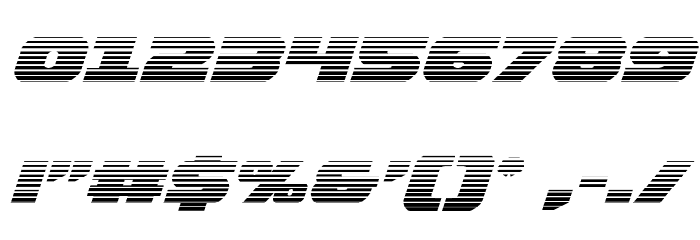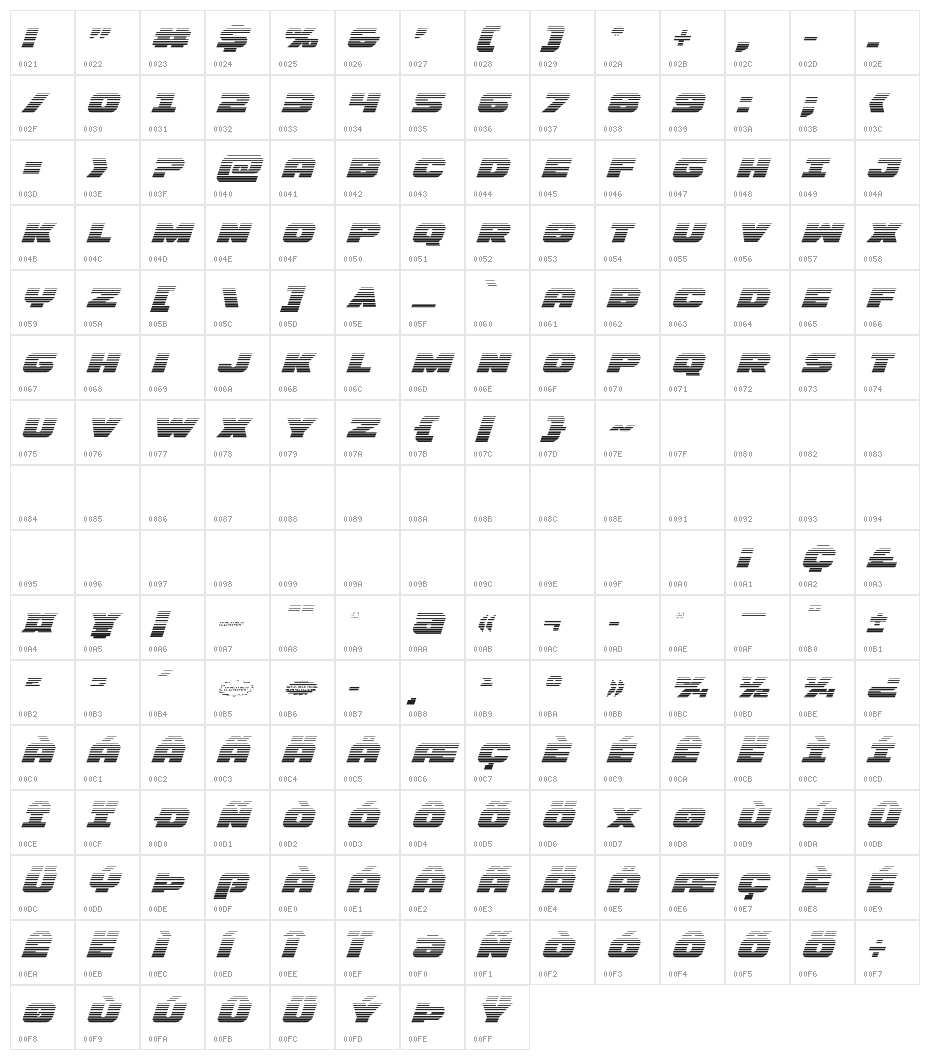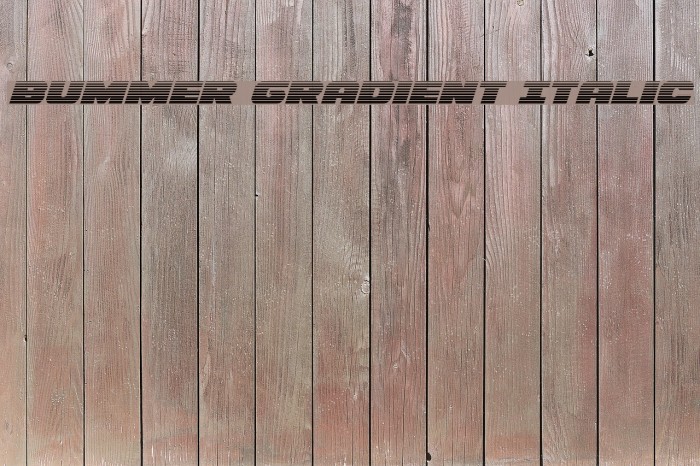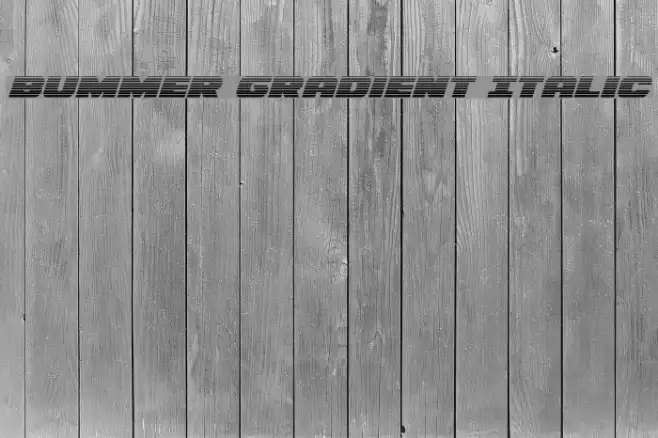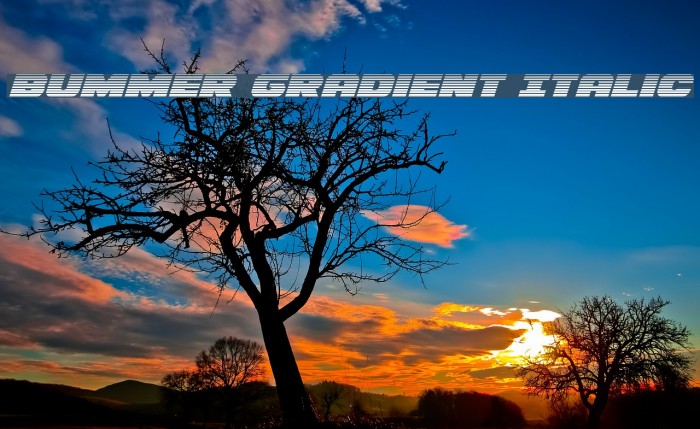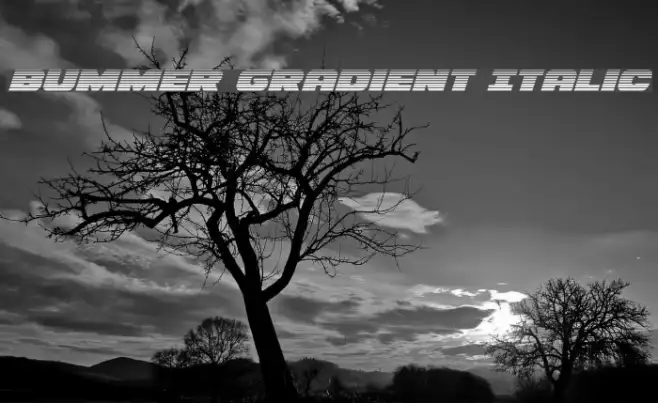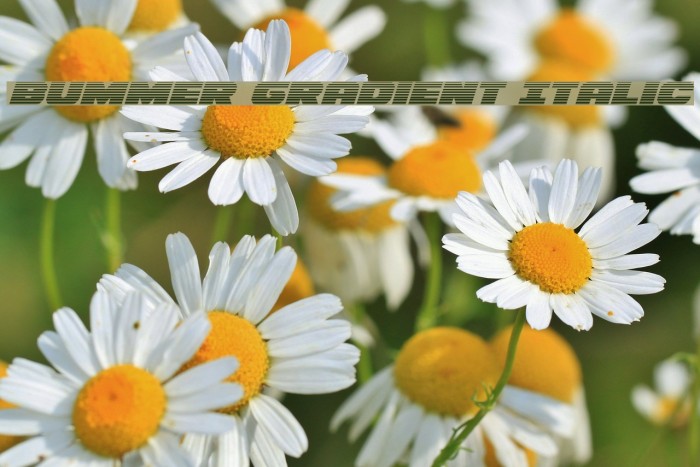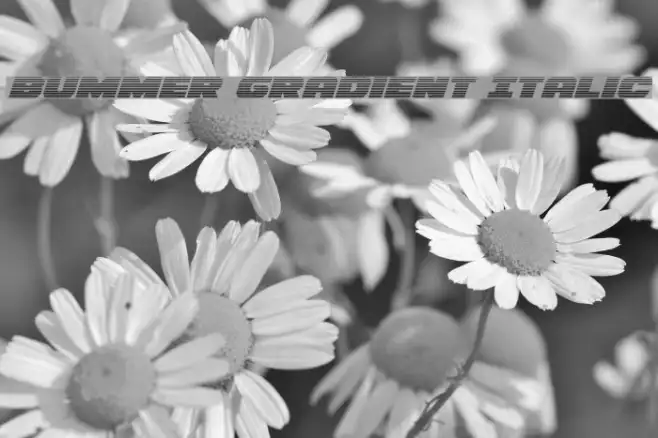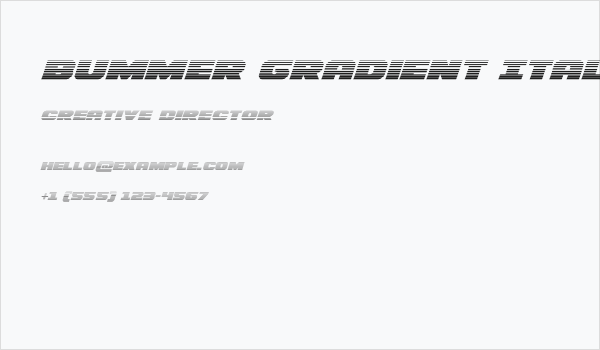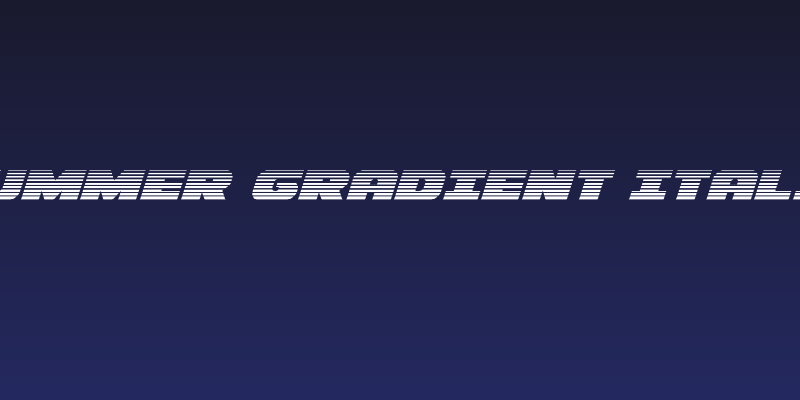
Bummer Gradient Italic Font
This font features a bold, italicized style with a unique gradient effect created by horizontal lines running through each character. The design is modern and dynamic, giving a sense of motion and speed. The uppercase and lowercase letters maintain a consistent style, with the same gradient pattern applied throughout. Numbers and special characters are also included, following the same aesthetic. The font's boldness and distinctive appearance make it stand out, ideal for projects that require a strong visual impact.
| Proposed Projects | Perfect for sports branding, futuristic designs, posters, and digital media that require a dynamic and modern look. |